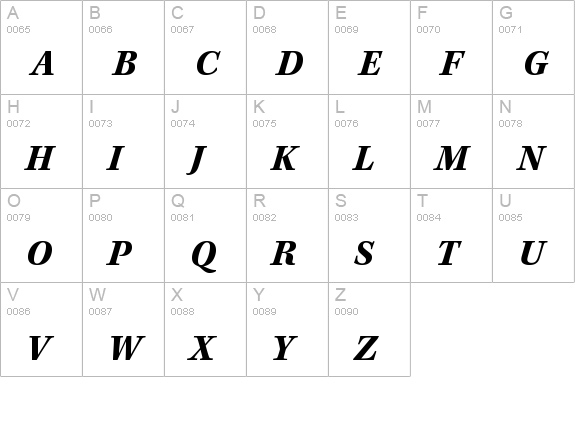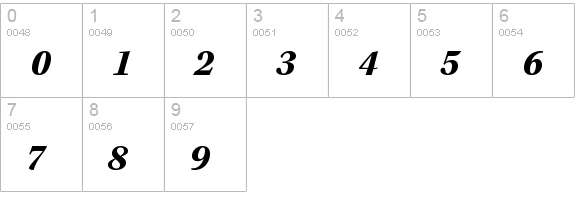
Kepler Std Bold Italic Caption Font Details
Kepler Std Bold Italic Caption is a strong, high-contrast, italic variant in the Kepler typeface family \xE2\x80\x94 well suited to headlines, attention-grabbing titles, and strong calls-to-action.
Kepler Std Bold Italic Caption is a visually striking and versatile font that exudes a sense of power and elegance. With its bold and italicized form, it effortlessly captures attention and adds a touch of sophistication to any design or project. This font is perfect for creating eye-catching captions, headlines, and logo designs that demand to be noticed. Its unique blend of boldness and italicized slant adds a dynamic and modern twist to traditional typography. The Kepler Std Bold Italic Caption font offers a wide range of possibilities, allowing you to express your creativity and make a bold statement. Whether you are designing a magazine cover, creating branding materials, or crafting a social media post, this font will elevate your work to the next level. What makes the Kepler Std Bold Italic Caption font even more appealing is that it is freely available to download at FontsMarket.com. You can access this font without any cost, making it an excellent choice for both personal and commercial projects. With its impeccable design and ease of use, the Kepler Std Bold Italic Caption font is a must-have for any designer or creative professional. Embrace its boldness, embrace its elegance, and let your imagination run wild with this exceptional font.